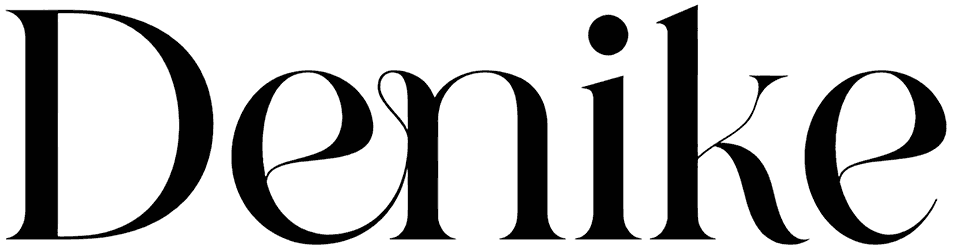
Denike Font
It is time to introduce Denike, a luxury serif font, emerging with a historical display. It’s a versatile font that comes with total letters and numbers but doesn’t include any punctuation. Given the minimal and professional touch to your design, and attracts attention to itself.
Therefore, if you want your project to look more trustworthy, this is a good suggestion. It can be used for book or magazine covers, headlines, logo designing, wedding invitations, and branding.